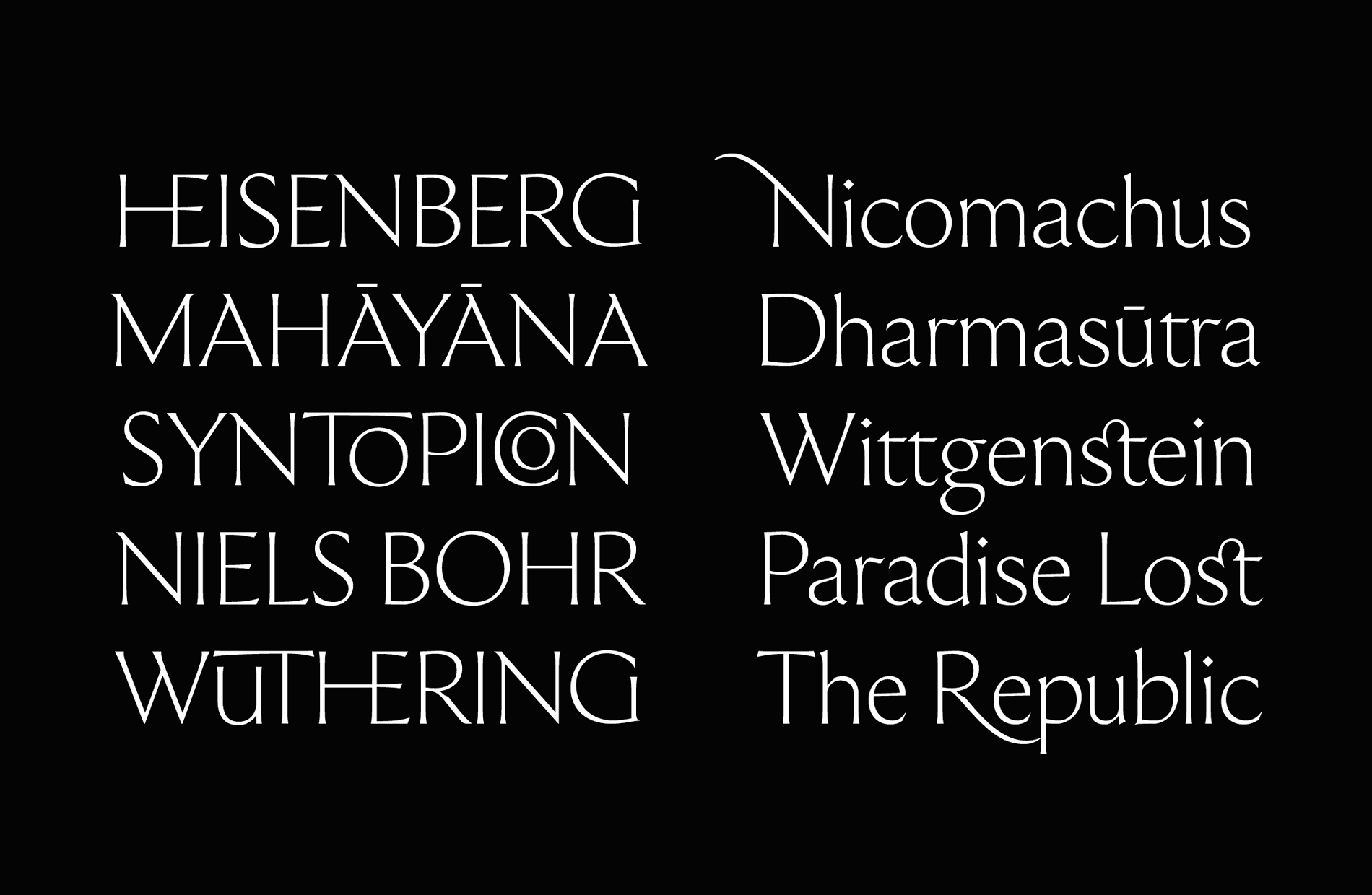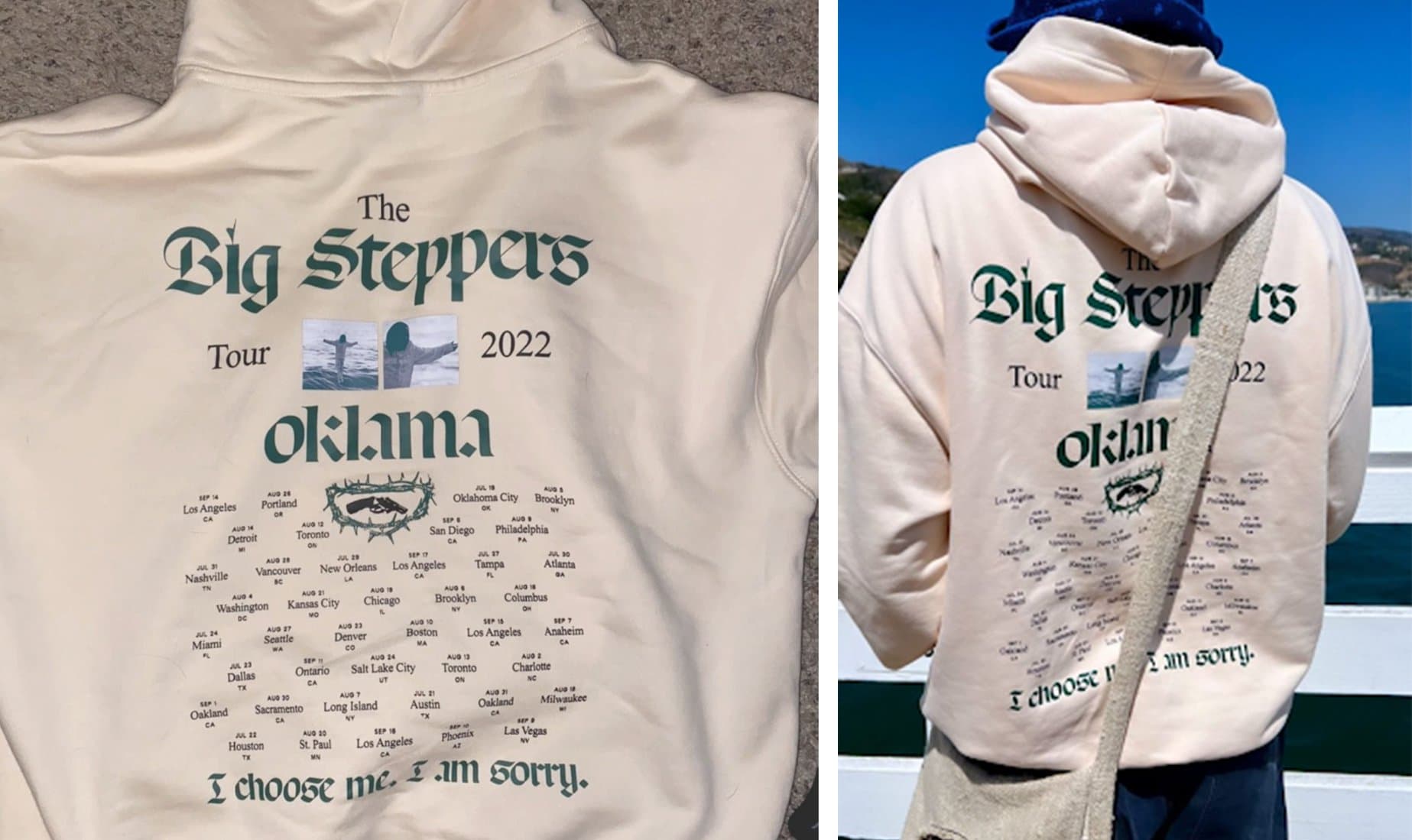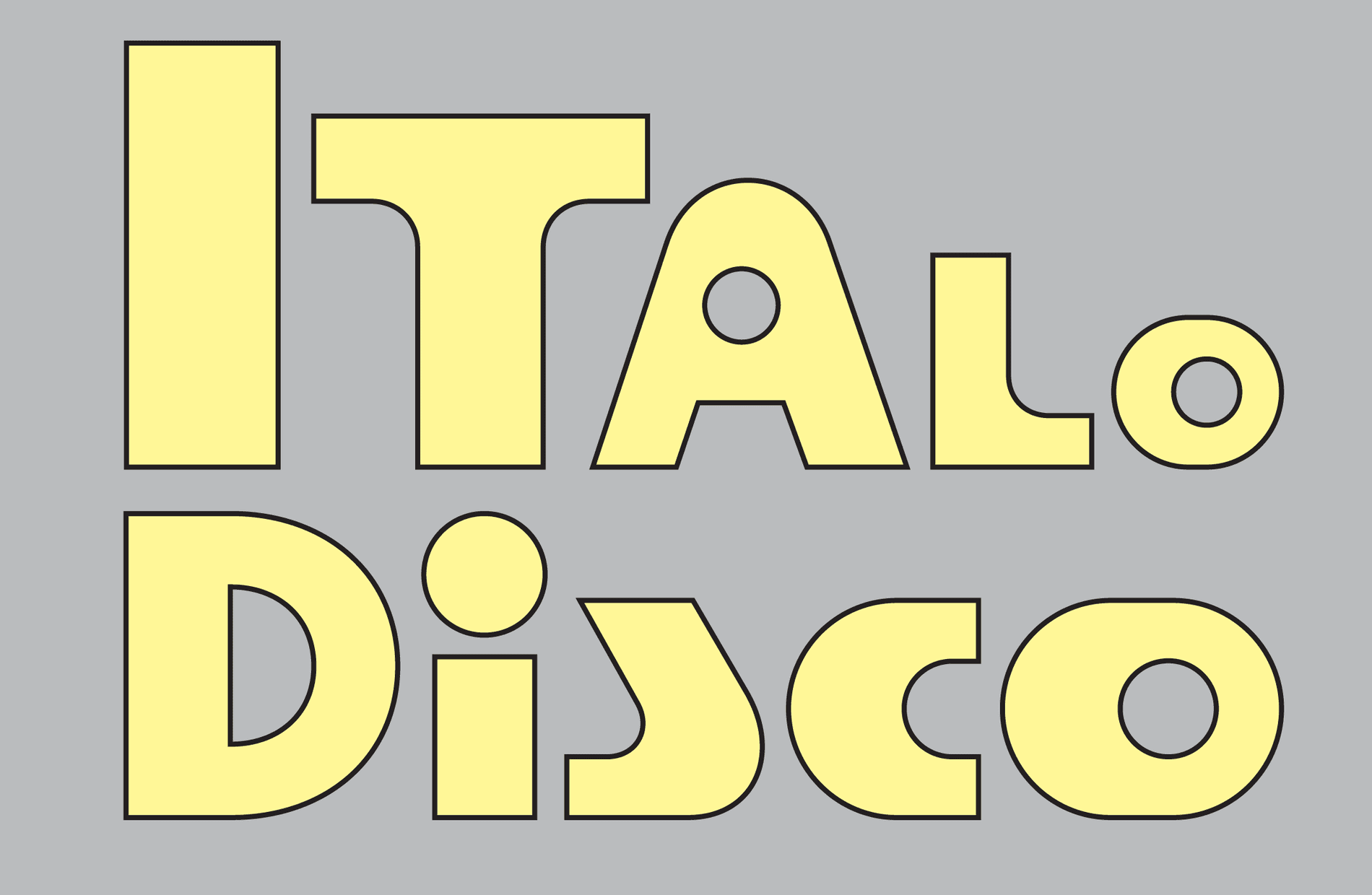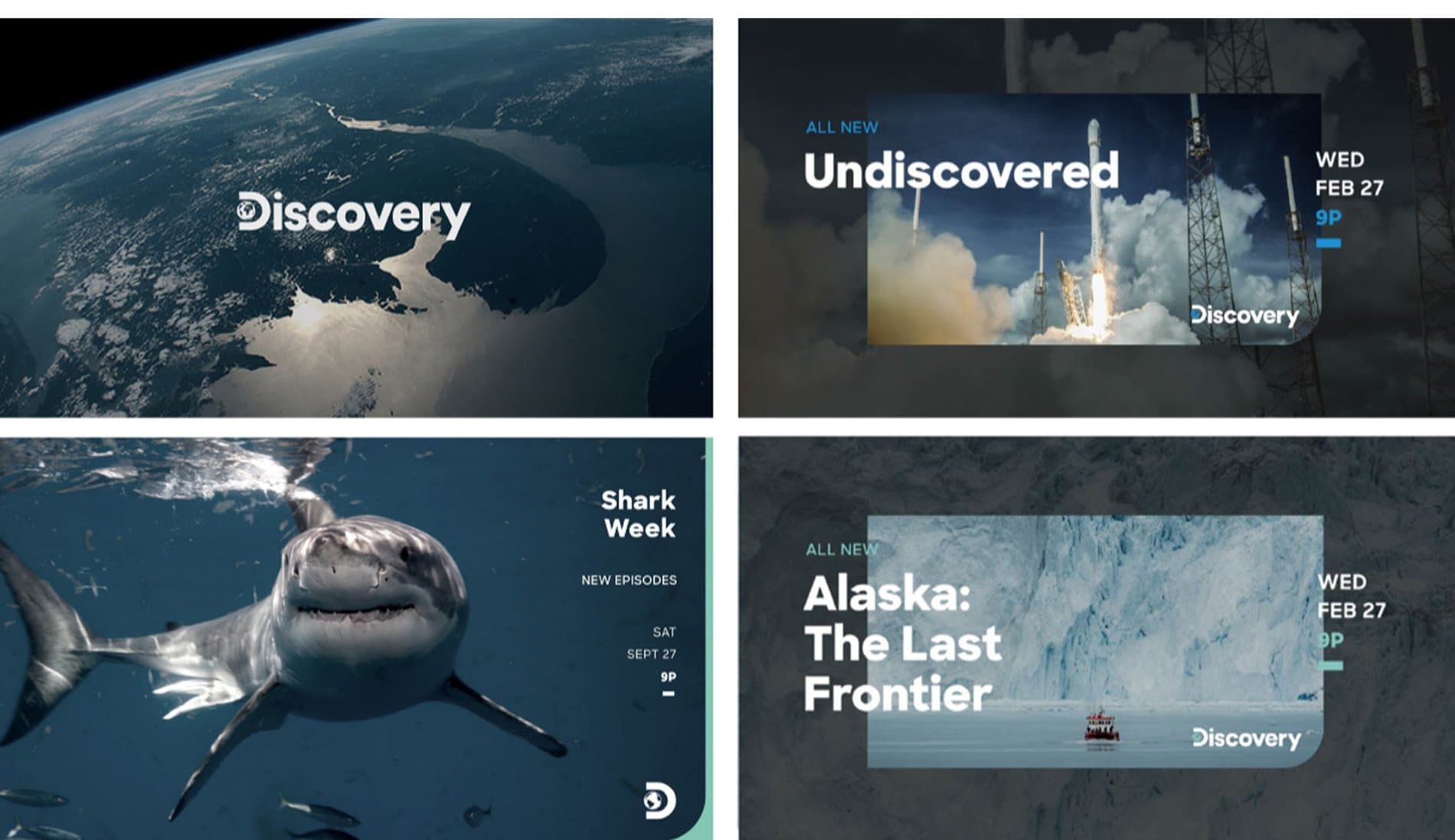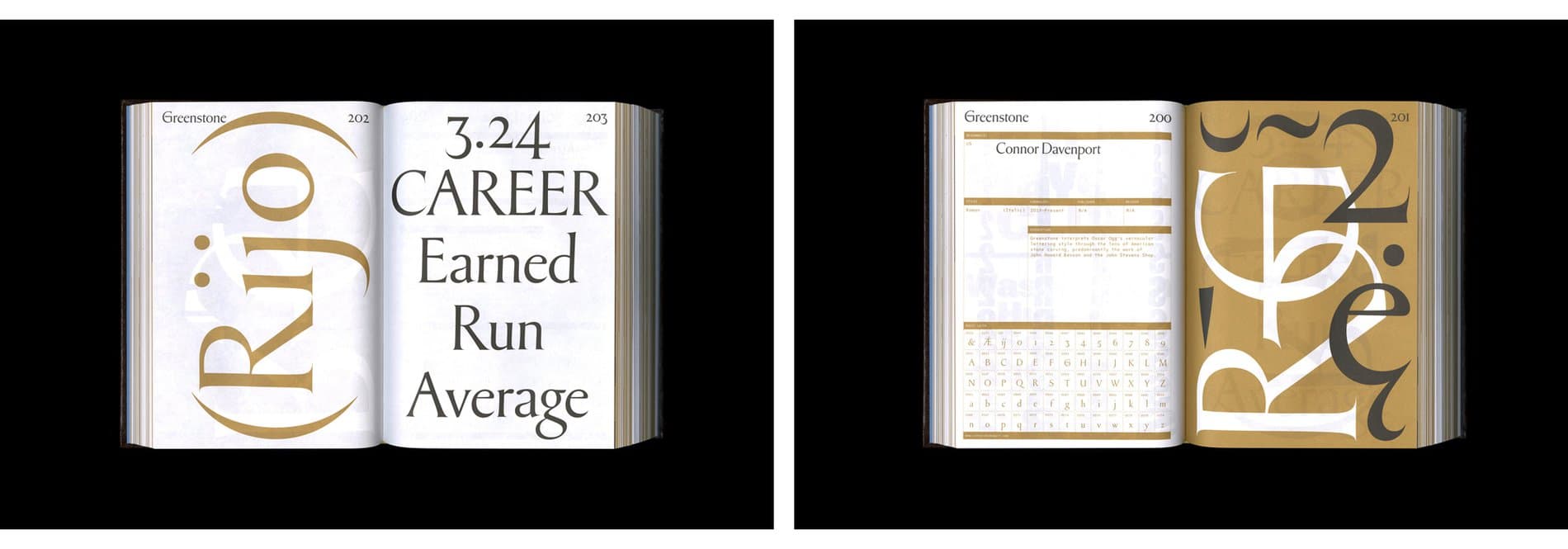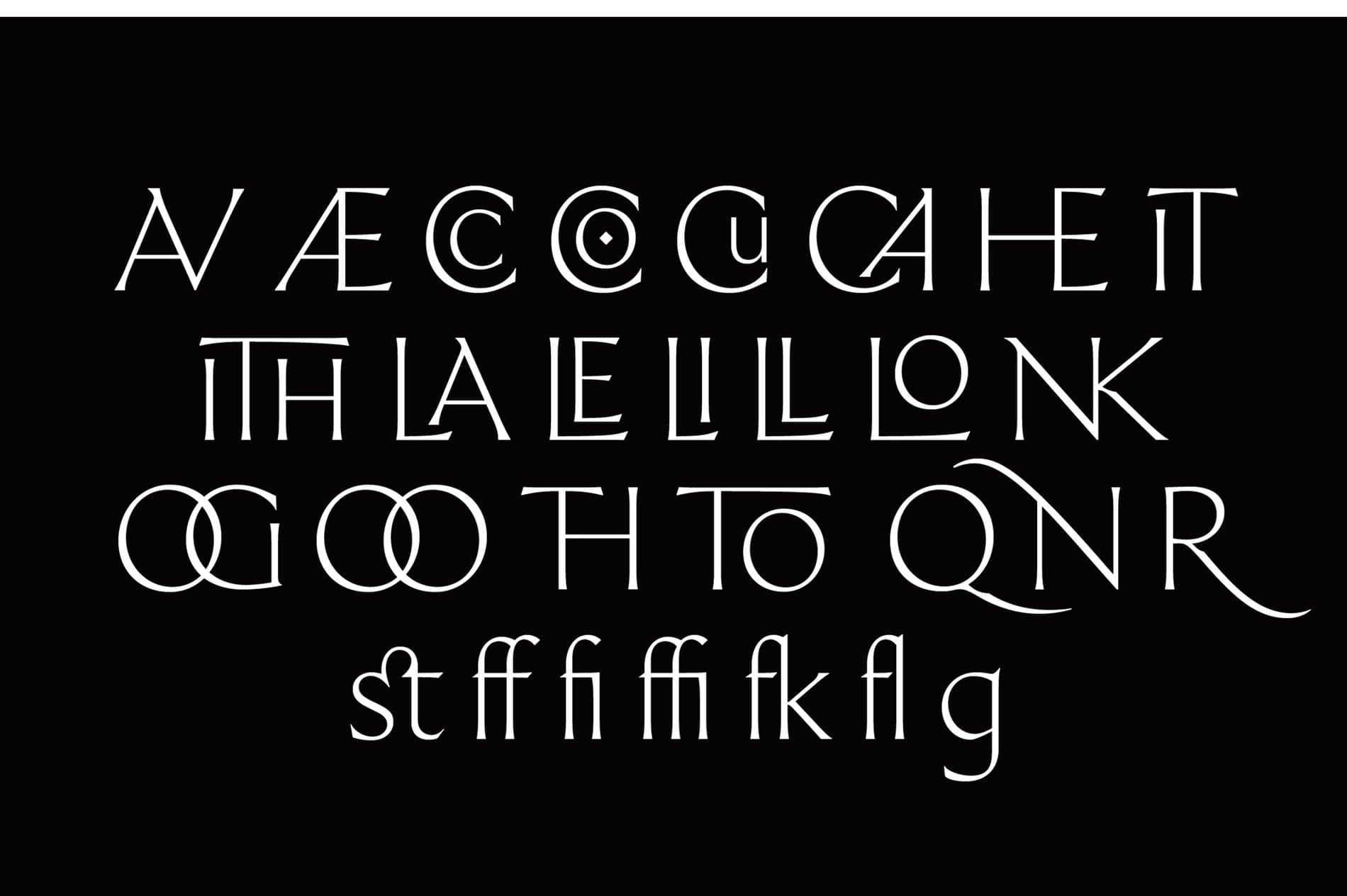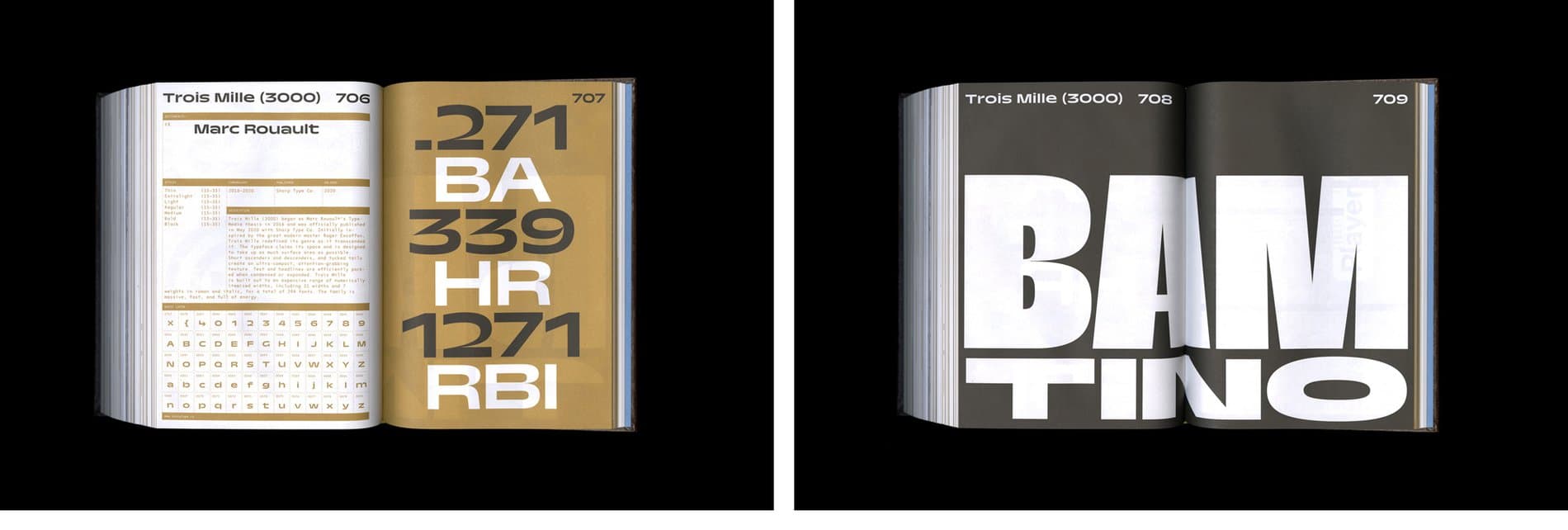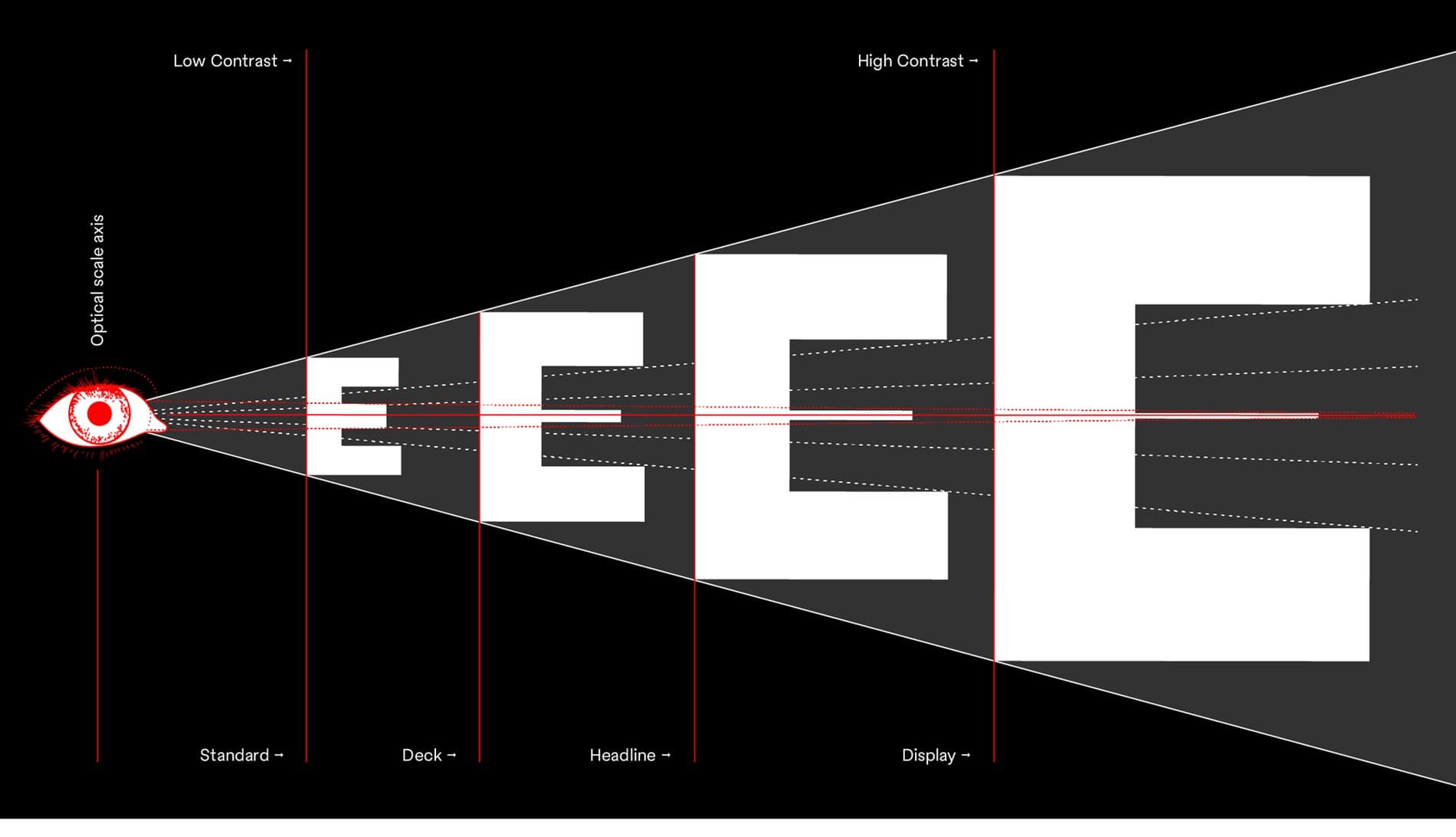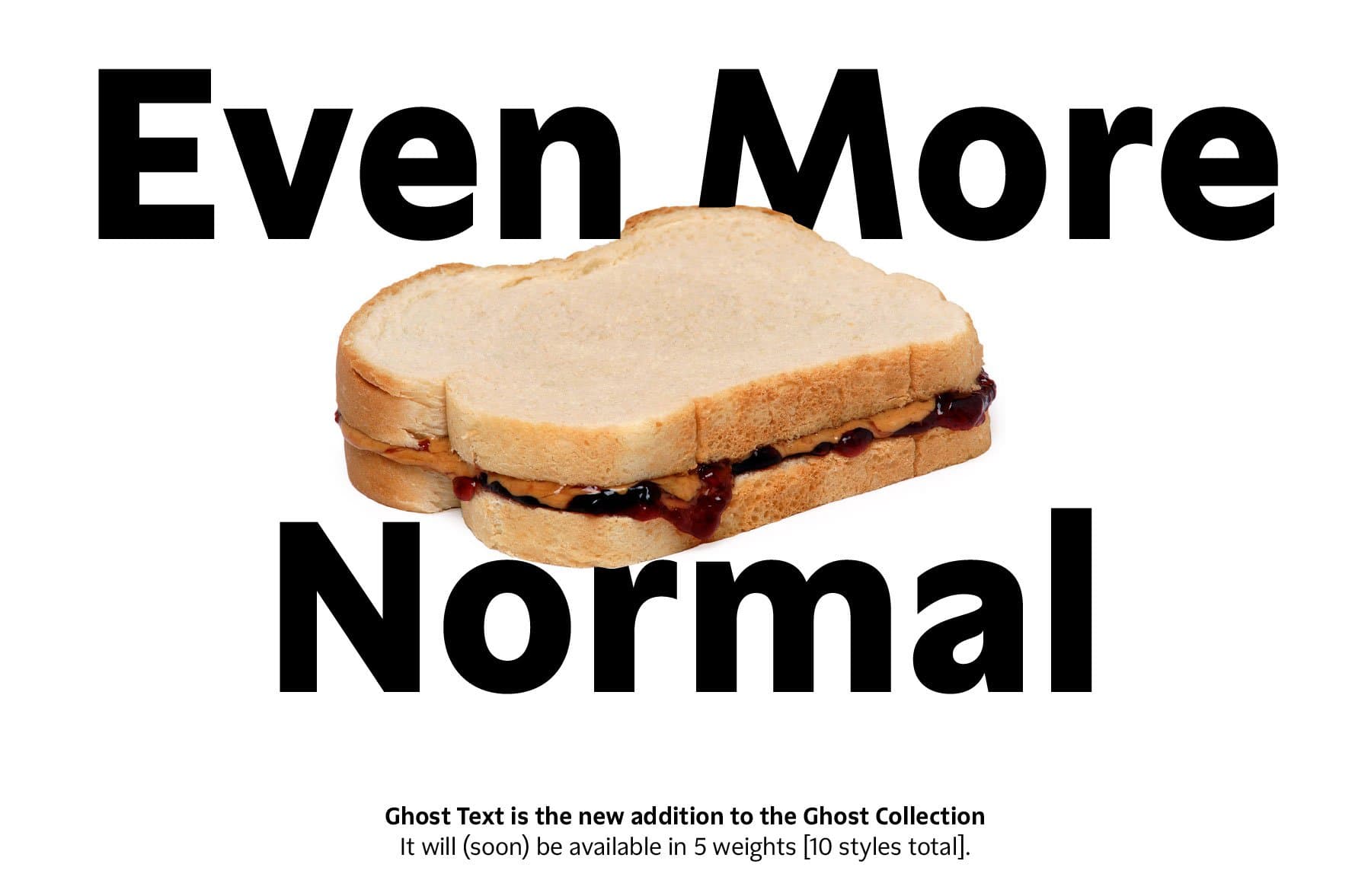
Looking over the past, present, and future:
Sharp Type team retreat, our newest typefaces, previews of upcoming releases, our favorite in-use cases, & this year’s Malee Scholarship recipients
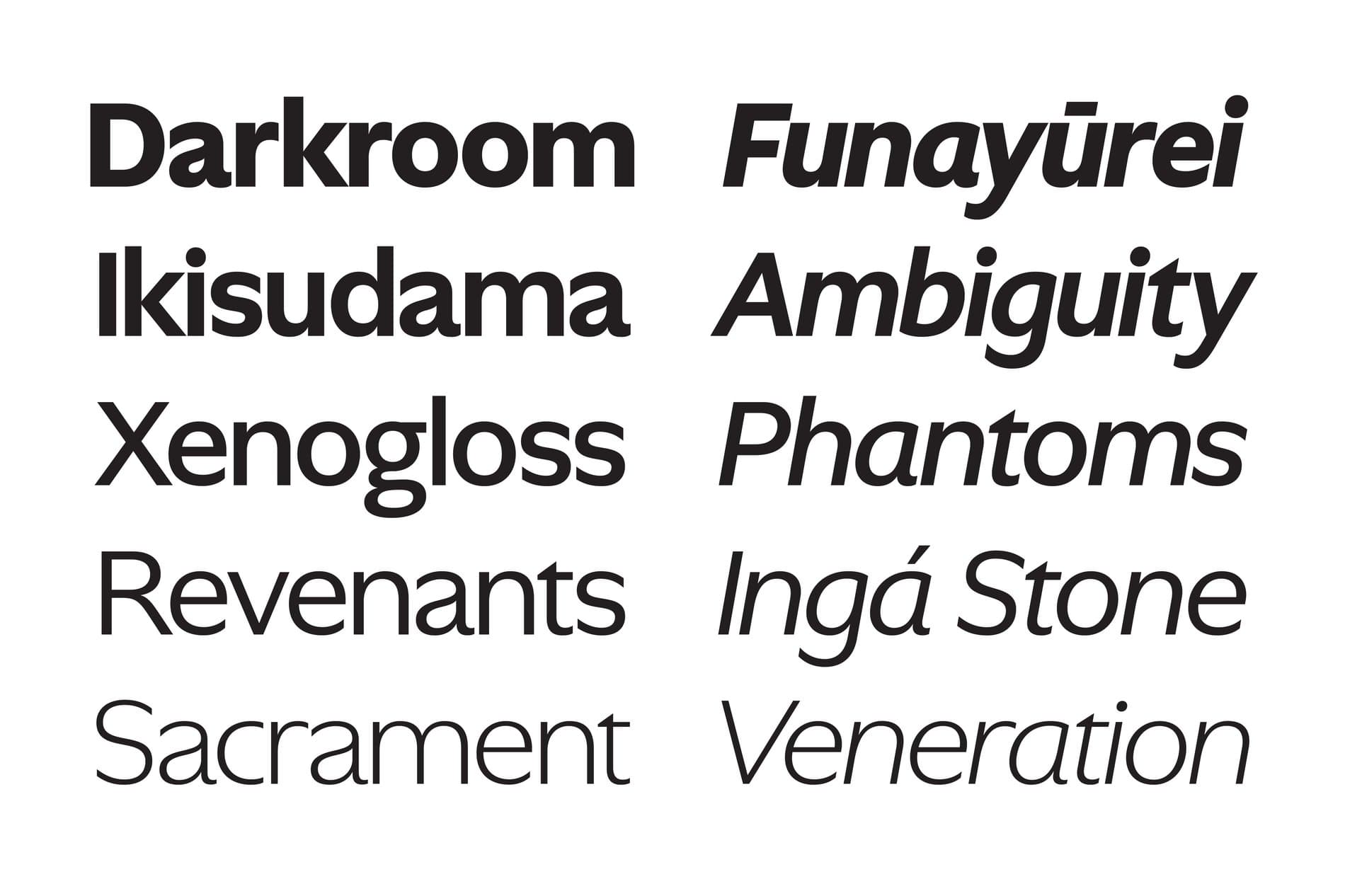
New Releases
THE BEATRICE COLLECTION
We grew our iconic display type into a superfamily. When we first released Beatrice in 2018, Lucas Sharp’s design landed in largely unexplored territory. Since then, Lucas and Connor Davenport—with invaluable assistance from Inga Plönnigs and Kia Tasbihgou—have been closing the gap left in-between the iconic Display and its more staid counterpart, Beatrice Standard. With the addition of Headline and Deck, the Beatrice Collection offers a complete spectrum of applications, filling what Lucas jokingly calls “the chasm of utility.” This smooth, interpolatable range of weights finally codifies the visual grammar that gives Beatrice such an exuberant presence. Read more.
GHOST DISPLAY
A new standard within the Humanist sans. Ghost is a back-to-the-roots take on the Humanist sans genre and a meditation on the ephemeral nature of normalcy. From its early stages of development, we honed in on the idea that the act of designing is also an act of criticism and foregrounded that throughout the process. Ghost is about adaptability and about a deeply nuanced and historically informed approach to design, stripped of the dogma. Read more.
Coming Soon
OCTAVE
Octave, Josh Finklea’s newest typeface release with Sharp Type, is a reconsideration of the modern sans serif typeface. Octave doesn’t indulge in typographic flourishes, nor does it cling to steadfast rules that hold other typographic standbys and contemporary revivals in the past. Instead, Octave embraces the overall design ideology of the modern sans serif while reasonably allowing for design structures and aesthetics to be logically reexamined and refined. There have been many expertly drawn revivals of classic typefaces in the last decade, but this isn’t an attempt to revive a classic, nor a comparison with these revivals. Octave is a typeface that harkens to the reliability and sensibility of the mid 1900's and comfortably displays its contemporary improvements.
GHOST TEXT
Ghost Text is a utilitarian Humanist sans like its Display counterpart, but it's designed for a different scale and has been developed for specific applications like UI and on-screen optimization. As its namesake denotes, Ghost Text is designed for maximum readability while retaining the warmth and quirkiness of its sibling. Designed by My-Lan Thuong. Look for it in the first quarter of 2023.
Sharp Type Collaborators
An update from Marc Rouault; introducing Emma Piercy and Lucile Billot. We’re lucky to have a growing roster of talented collaborators spread across the world. We checked in with a few of them to see what they’ve been up to this summer.
MARC ROUAULT
Marc Rouault is a long-time collaborator, having designed both Trois Mille and Tarnac. He’s based in Zürich but has been busy moving around the continent this summer. He rejoined the team at Type@Paris earlier in July, where he has been an instructor for a few years. Marc also found himself in Burgundy, where he volunteered at a music festival: “I went there partly by bike and came across this amazing sign. This Slab has usually some contrast, but here it looks like they added a contour, which makes it look like Tarnac.”
Doss is Marc’s latest family-in-the-works. Inspired by the logotypes of construction and hi-fi audio brands, the family also references the aesthetics of 90s rave culture. Here’s a sneak peek at the first two in the family, tentatively-named Acid and Exaflop.
PYRAMID
EXAFLOP
EMMA PIERCY
Emma Piercy is a Korean-British designer currently based in Amsterdam. She has been working on her debut typeface, Ceraph, which will be published through Sharp Type. Emma has been making trips to the city’s only poetry bookstore, Perdu: “If you like old book covers, it’s an absolute goldmine.” She has also been learning the art of stone carving this summer under the tutelage of Céline Hurka. Ceraph is an elegant flared serif that is already in-demand; notably, it was used for a collaborative t-shirt with Ghostly this past spring. Read more.
LUCILE BILLOT
Introducing our newest collaborator, Lucile Billot. She is a French graphic & type designer currently based in Münich. She is working on a couple typefaces with us, and we wanted to share one with the working name Schlegel. From Lucile: “I am looking for the right texture, rhythm but accidents. Working with the contrasts. Some shadows. Something with a haptic dimension. A thick material. Quite sculptural, but I hope it stays humble and useful: no blockbuster. No monument.”